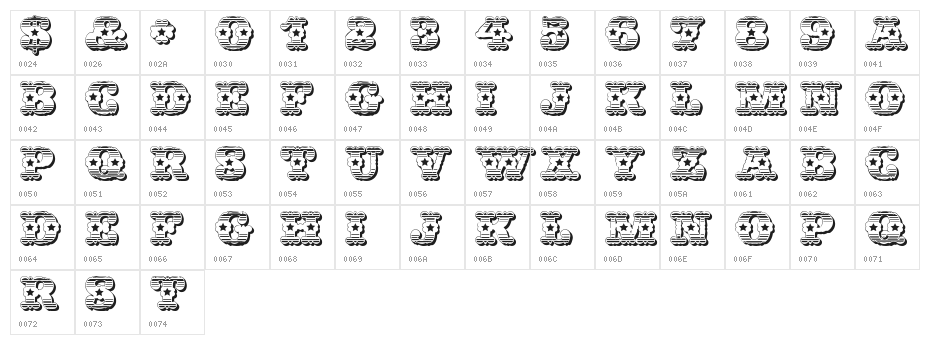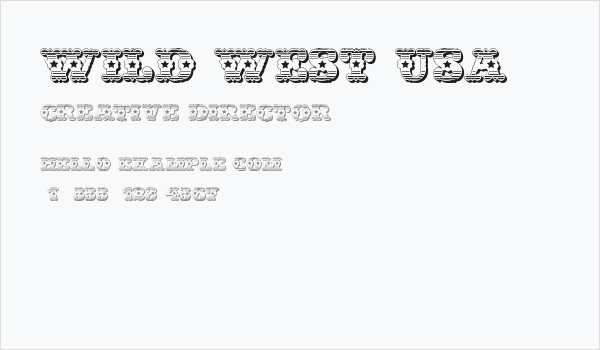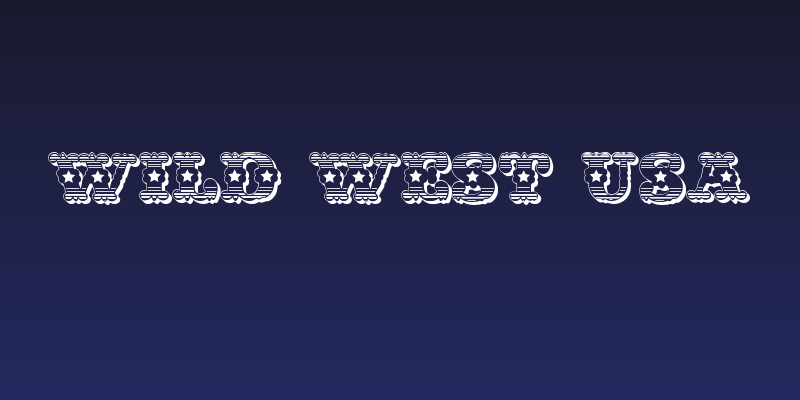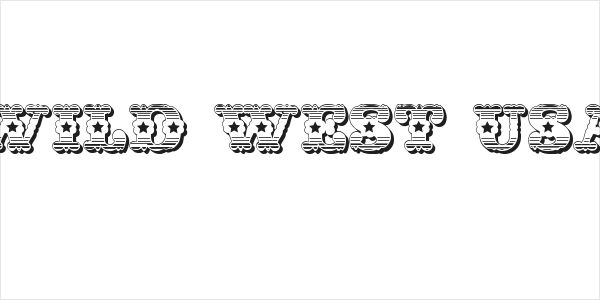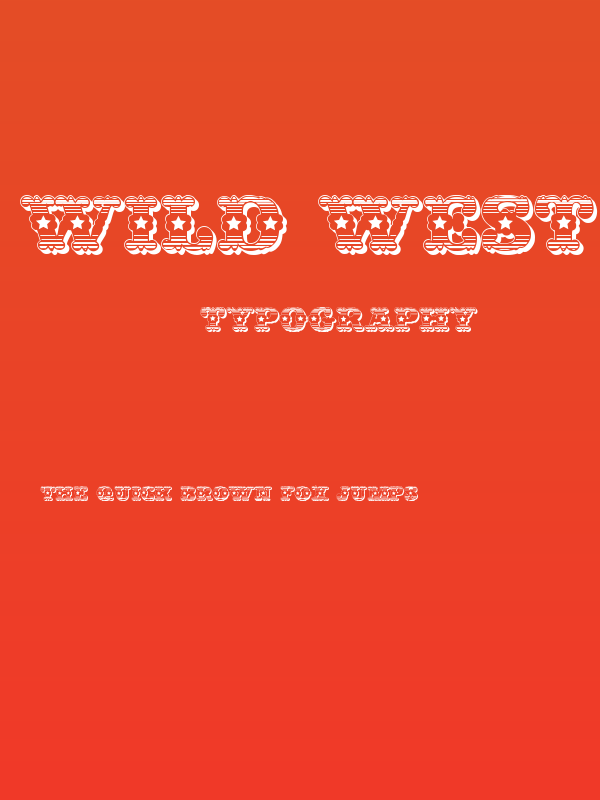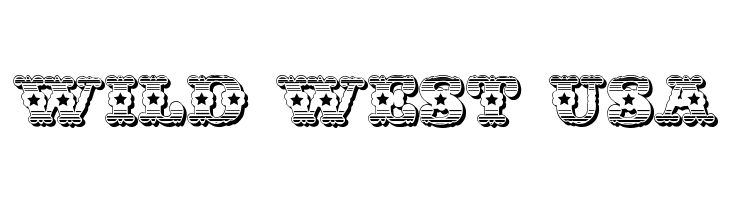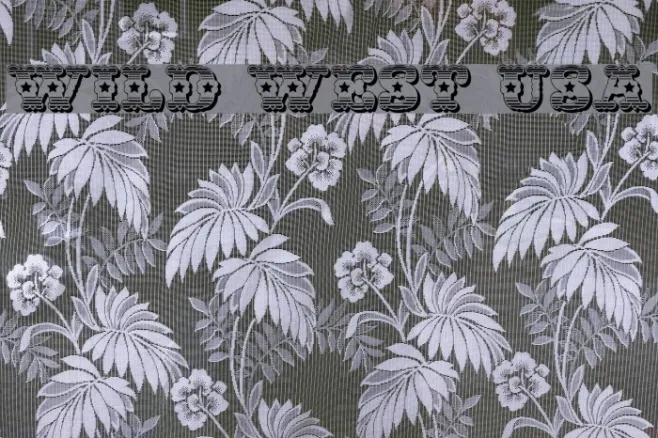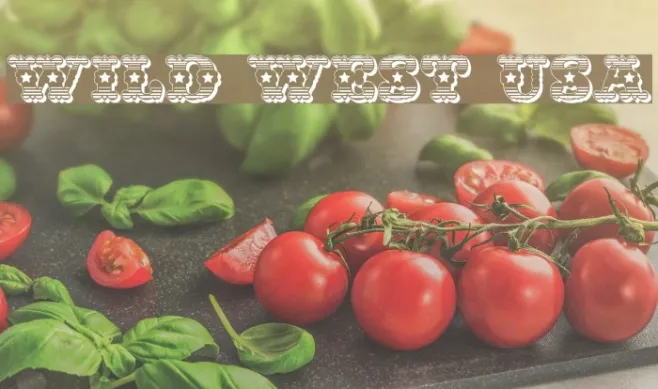
Wild West USA Font
Wild West USA Description
This font features a bold, decorative style reminiscent of the Wild West era. Each character is adorned with stars and stripes, giving it a distinctly American feel. The letters are outlined with a thick black border, enhancing their visibility and impact. The design includes both uppercase and lowercase letters, as well as numbers and special characters, all maintaining the same thematic elements. The font's playful yet rugged appearance makes it ideal for projects that require a touch of nostalgia and Americana.
| Overall Style | Vintage |
| Proposed Projects | Ideal for posters, themed events, branding for Western-themed products, or any design needing a vintage American flair. |